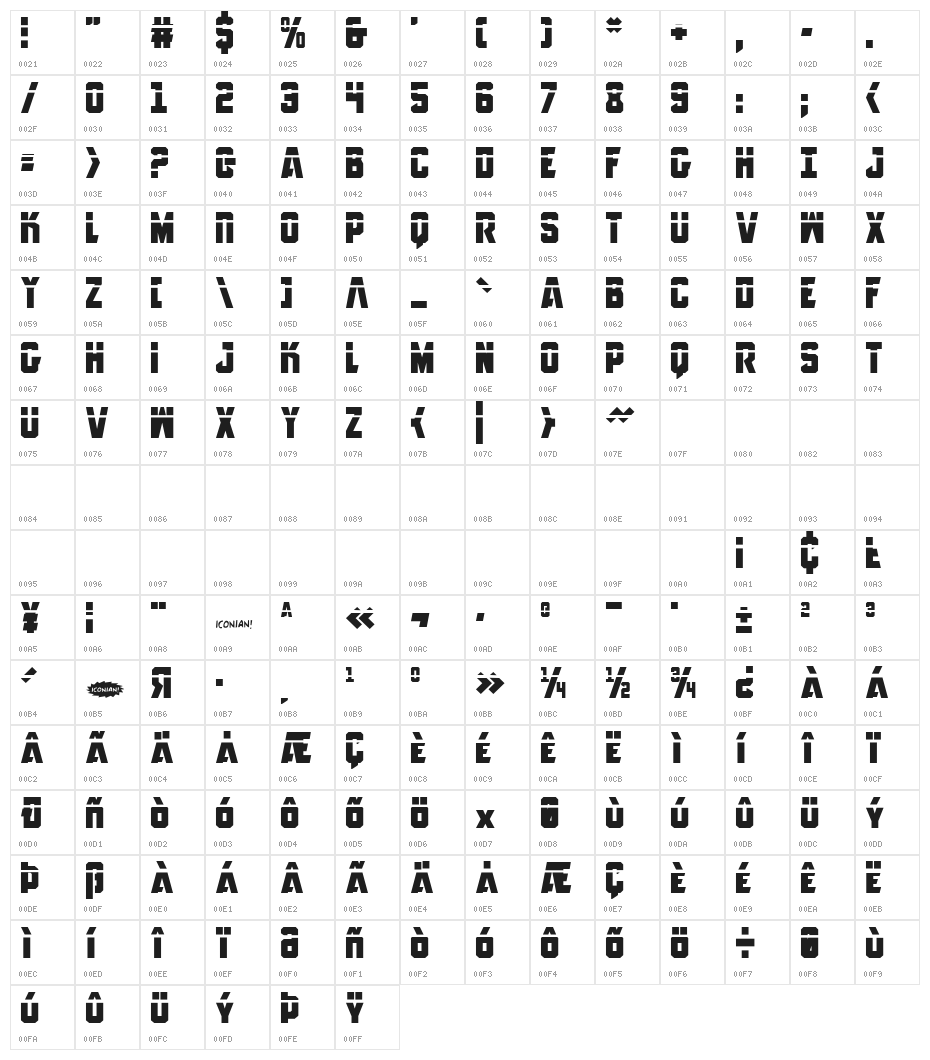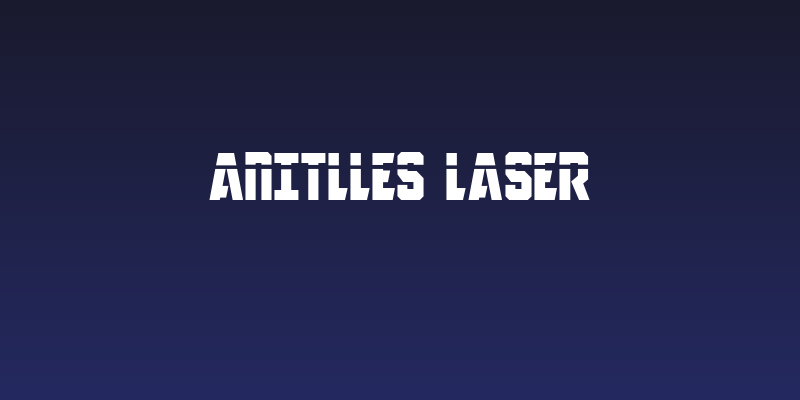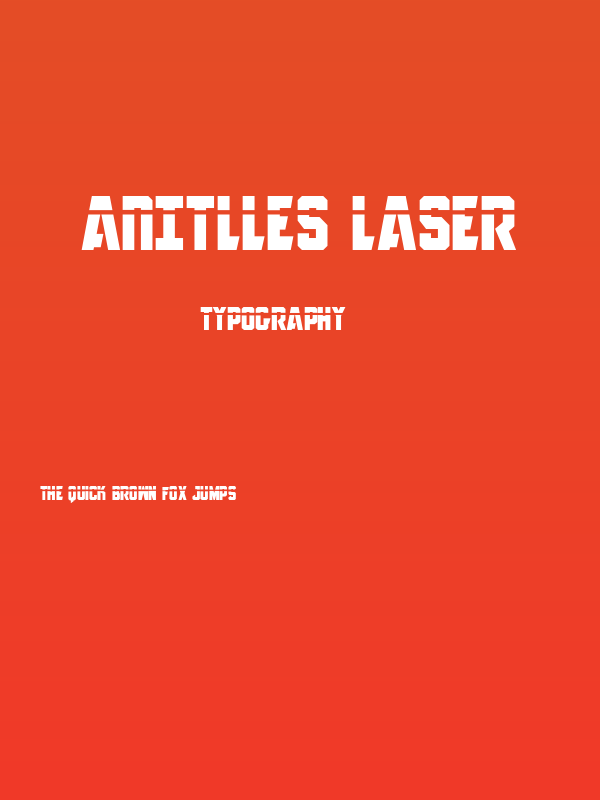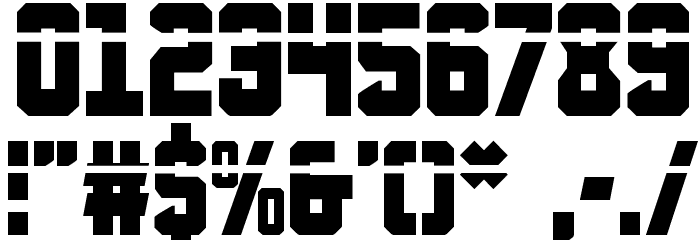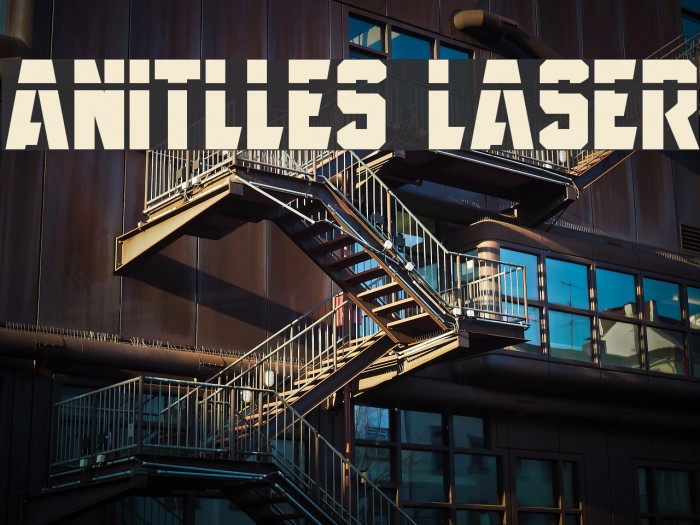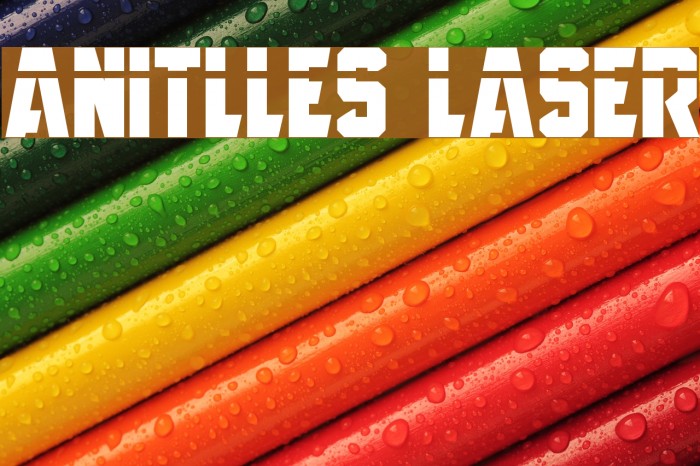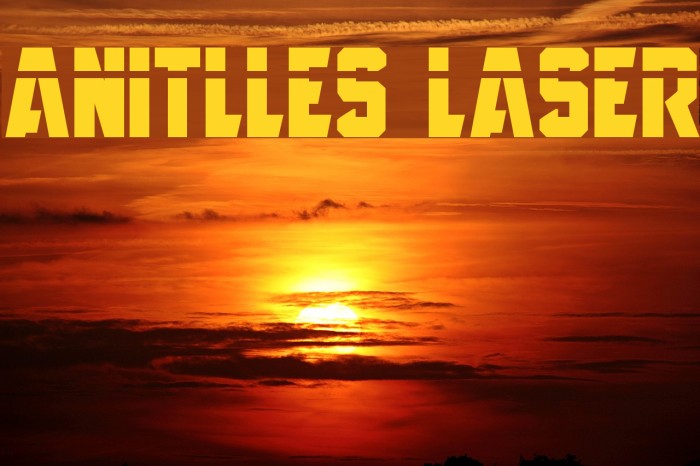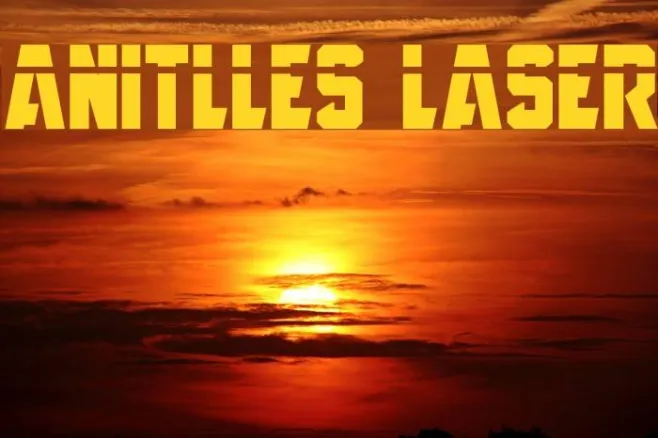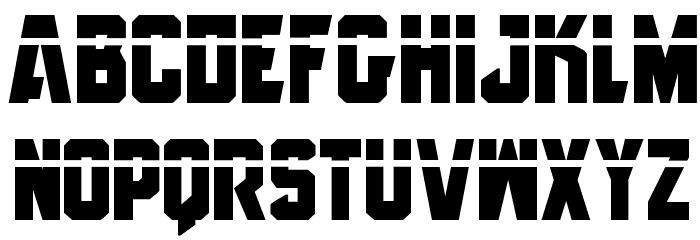
Anitlles Laser Font
This font features a bold, geometric design with a distinct, futuristic style. The characters are constructed with sharp angles and straight lines, giving them a mechanical and industrial feel. The uppercase and lowercase letters maintain a consistent height, creating a uniform appearance. The numbers and special characters follow the same design principles, ensuring a cohesive look across all elements. The font's unique style makes it stand out, ideal for projects that require a modern and edgy aesthetic.
| Overall Style | Futuristic |
| Proposed Projects | Ideal for sci-fi themed designs, video game titles, tech branding, and futuristic posters. |